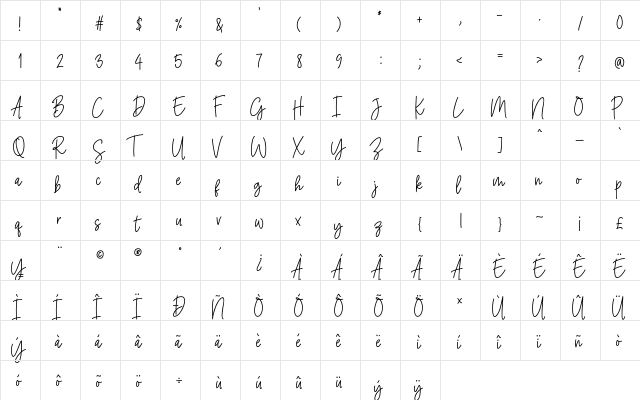
Jahannam Balla Regular
| Foundry | belovestudio |
| Designer | abdul manan |
Design Context for Jahannam Balla Typeface
Jahannam Balla is a composed and adaptable typeface that performs quietly and consistently across a wide range of design contexts.